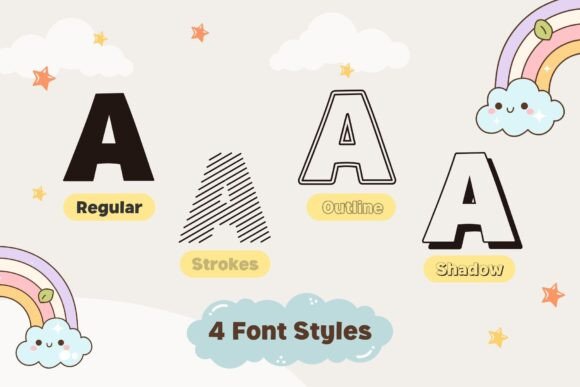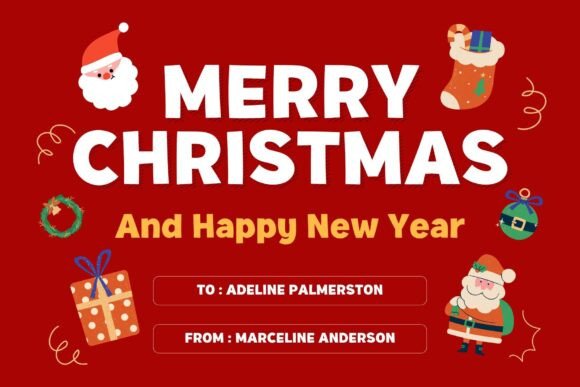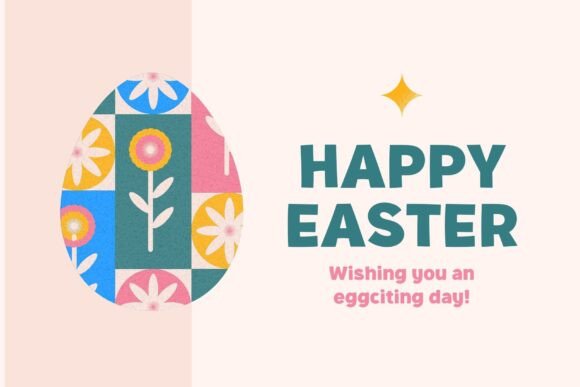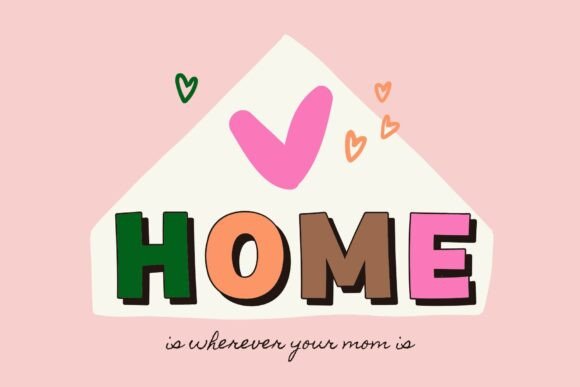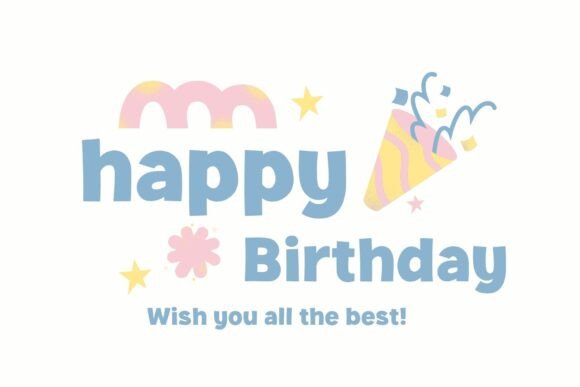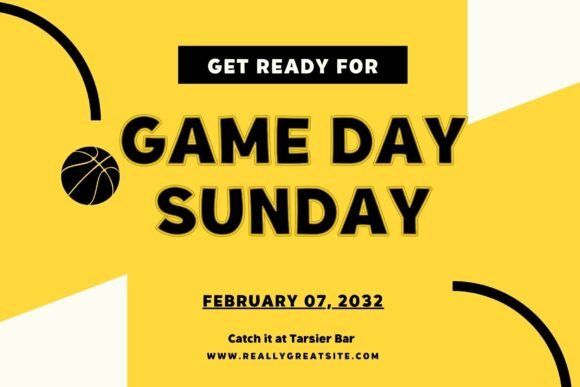
Introduction to Fox Boogie Font
Bring a burst of joy to your designs with Fox Boogie – a fun, bubbly, and adorable display font perfect for kids’ projects, greeting cards, branding, and anything that needs a sprinkle of happiness.
This font features 4 charming styles: Regular, Strokes, Outline, and Shadow – giving you creative flexibility for any occasion Inspired by kawaii aesthetics and playful doodles, each letter in Fox Boogie is rounded, friendly, and full of personality.
Key Features of Fox Boogie Font
Why Choose Fox Boogie Font?